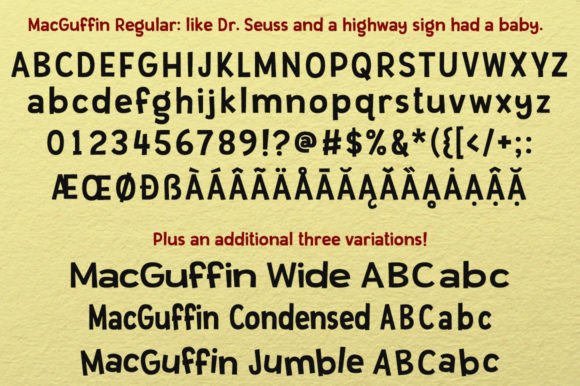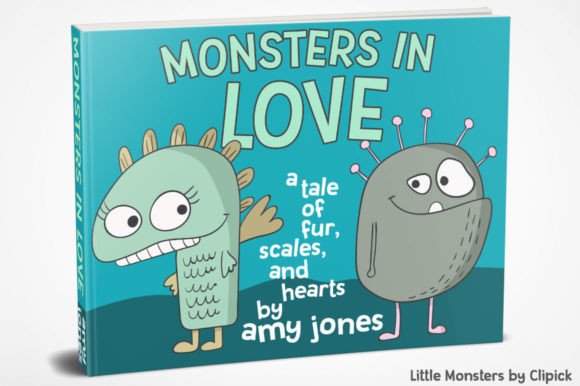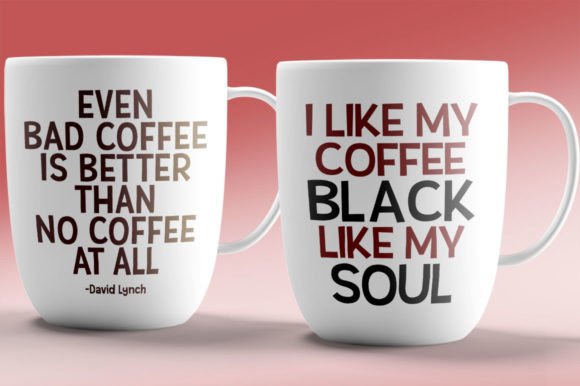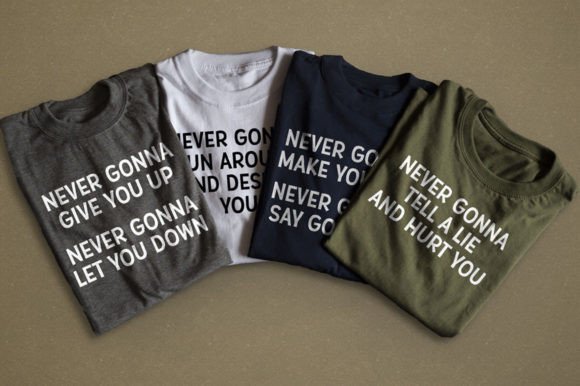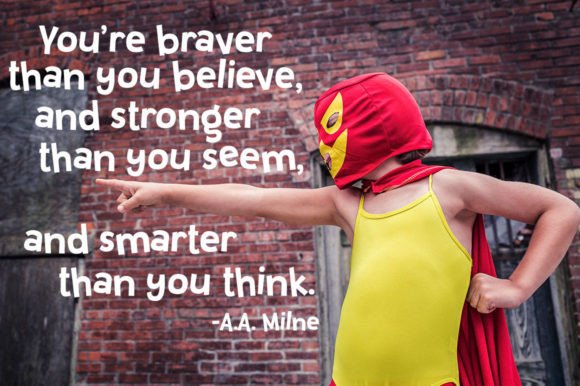
Introduction to Macguffin Font
Have you ever found yourself staring at a blank canvas, struggling to bring your creative vision to life? The blank page syndrome can be daunting, but with the right tools, it can be a liberating experience. As designers, we’re always on the lookout for high-quality resources that can help us breathe life into our ideas. That’s where the Macguffin Font comes in – a versatile, clean, and fun font that’s perfect for any creative project.
As a free download, the Macguffin Font is an invaluable design resource that offers four unique fonts in a single package. With over 500 characters, including extended options for Latin languages, you’ll have everything you need to create stunning logos, signs, and more. And with its transparent background, you can easily integrate it into your design without any hassle.
Whether you’re a seasoned pro or just starting out, the Macguffin Font is a valuable addition to your design arsenal. Its crisp, sharp, and smooth design makes it perfect for a wide range of creative projects, from branding and advertising to crafting and signage. So why not give it a try and see what amazing things you can create with the Macguffin Font?
Key Features of Macguffin Font
- High-quality, free download font ideal for creative projects
- Comes with a transparent background, allowing for seamless integration with various design elements
- Features a unique, elegant design suitable for a wide range of design applications
- Supports multiple languages, making it a valuable resource for international design projects
- Includes a comprehensive character set, including uppercase and lowercase letters, numbers, and punctuation
Honest Review: Macguffin Font
I recently had the chance to experiment with the Macguffin Font, and I must say it’s been a delightful addition to my design resource library. This free download is perfect for any creative project that requires a touch of elegance and sophistication.
- ✨ High-quality typography that’s perfect for titles and headings.
- ✨ Transparent background, making it easy to overlay on any image or design element.
- ✨ Versatile and stylish, suitable for a wide range of creative projects.
- ⚠️ Limited character set, which might be a concern for projects that require extensive text.
- ⚠️ Not ideal for body text, as it can be a bit too ornate for large blocks of text.
Overall, I’m thoroughly impressed with the Macguffin Font. Its high quality and versatility make it an excellent addition to any design resource library. While it may have some limitations, I believe it’s a great choice for projects that require a touch of sophistication and elegance.
Common Use Cases for the Macguffin Font
The Macguffin Font is perfect for creating eye-catching graphics, such as social media posts, blog headers, and website titles. It can also be used in creative projects, such as posters, flyers, and brochures.